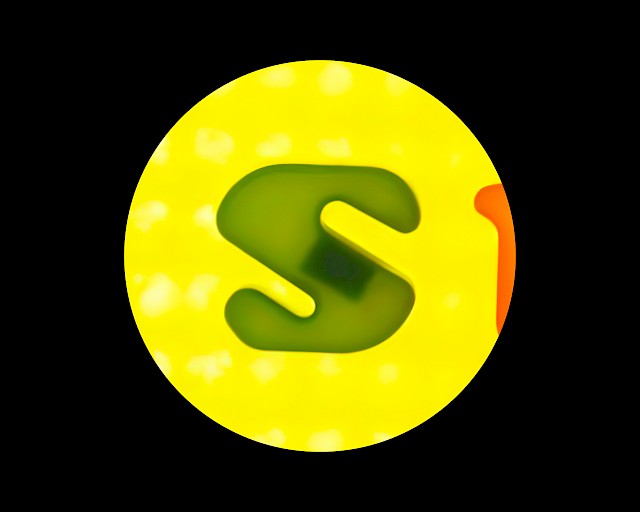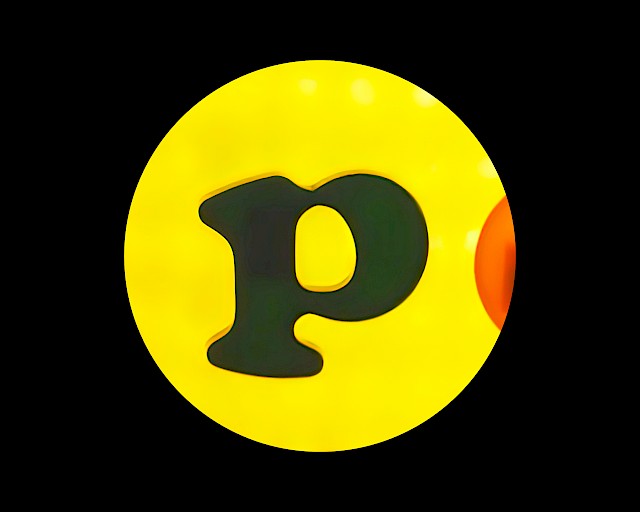
History
Supermotor, Blue Man, Ombudfilm, 20??
ToMagnet was born out of the titles from Supermotor, a short film realized by the artist Blue Man for Ombudfilm. Shot though the use of simple magnetic letters usually found on a kitchen fridge and some jelly, the multi-color words appear in saccades over a vivid yellow background. The richness of the shapes rises from the fact that the letters actually come from various alphabets, thus displaying a strong contrast between each letter’s proportions and design features. Moreover, some lowercases such a the «s» seems like it is upside down. Finally, the variation of x-height across the lowercases combined with a significant rounding of the edges provide the typeface with a strong graphic identity. After a careful optical drawing process, ToMagnet holds together all the various oddities found in the reference sample and yet maintains a graphic consistency. With a unique extra-black cut, the typeface is primarily intended for display use and branding contexts, thought it even proved efficient in small sizes. Designed between 2021–2023, first released in 2023.
Magnet
Synonyms
To Rivet
To Attract
To Paralyze
To Pull
To Appeal
To Seize
To Intrigue
To Transport
To Hold
To Draw
To Absorb
To Involve
To Engage
To Wonder
To Fascinate
To Grip
To Interest
To Captivate
To Charm
To Preoccupy
Definitions
MAGNET( ize ), v. { mag-ni-tize } [ I ] To give ( something ) magnetic properties — To magnetize a needle. [ II ] To strongly attract or spellbind ( someone ) — Billie’s confidence magnetizes people towards him. { Semantic Field } [ nouns ] Magnetization, magnet, magnetism, electromagnet, lodestone, magnetizer, coercivity, polarity, hysteresis, armature, coil, solenoid, current, needle, compass, permeability, iron, pole, flux, galvanometer, wire, induction, pulsar, plasma, oscillation, particle, diaphragm, steel, neutron, field, core. [ adjectives ] Magnetic, ferromagnetic, paramagnetic, electromagnetic, iron, electric, polarized. [ verbs ] Demagnetize, rotate. [ proper nouns ] Mesmer, Faraday.
Usages
Hysteresis refers to how the magnetic flux in the metal lags behind the external magnetizing force. [ Wikipedia ] The reason for this is, that a given magnetizing force will set up in iron a vastly greater number of lines of magnetic force than in air or in any other non-magnetic material.American School of Correspondence, Cyclopedia of Telephony and Telegraphy Vol. 1 — A General [ Project Gutenberg ] He demonstrated that a wire carrying a current could deflect a magnetized compass needle. [ Wikipedia ] Now this constant turmoil in the ether which creates the magnetic area explains why the magnetized needle of a compass unfailingly points north and south.Bassett, [ Project Gutenberg ] In magnetized iron, the electronic spins of the domains are aligned and the magnetic effects are reinforced. [ Wikipedia ] The main gateway to the world of Elves in Lancre is surrounded by several large boulders of naturally magnetised meteoric iron. [ Wikipedia ]
Etymology
Borrowing from Old French magnete, ‘loadstone ( natural magnet )’; from Classical Latin magnetis, genitive of magnes, ‘magnet or loadstone’; from Ancient Greek Magnētis ( lithos ), ‘Magnesian stone ( from Magnesia, Thessalian region of Greece )’.